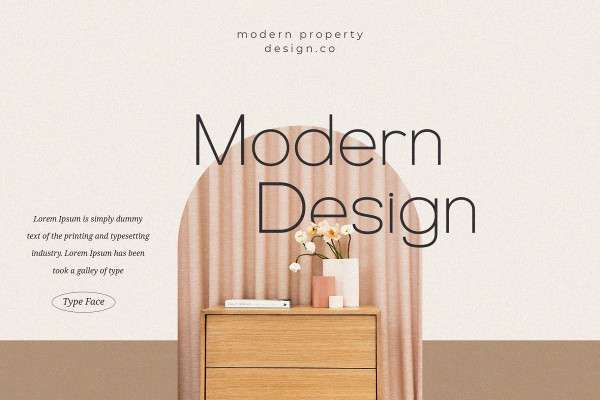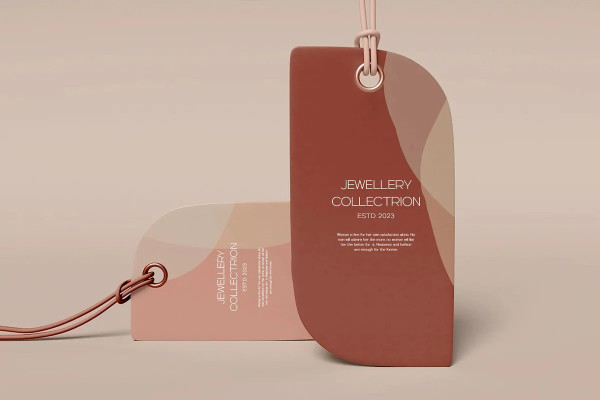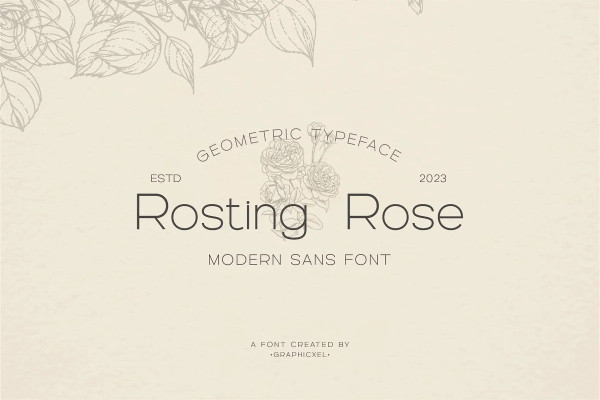
Rosting Rose Font
Rosting Rose Font – Modern Sans Serif Font. This font has a harmonious and beautiful shape that makes it perfect for all your needs for long text, branding, logotypes, print designs and more. This font is made in detail and measured by using geometric details to make this font look balanced and minimalist. This font is dedicated to the use of all needs in 2023, and will be the most popular and best selling font of the year.